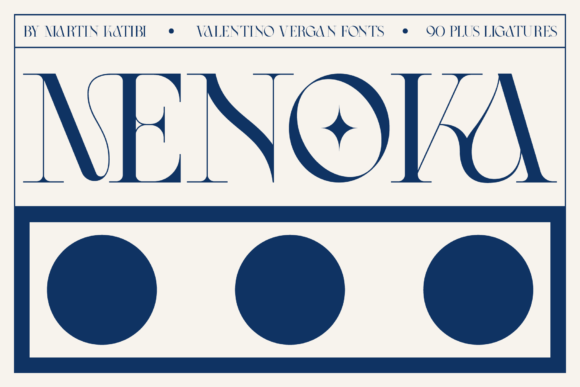
Step into the timeless realm of typographic elegance with Menoka, a sophisticated serif typeface that exudes the grace and refinement of the Renaissance period. Its slender hairlines and elongated serifs echo the refined aesthetics of 17th-century artistry, bringing a touch of historical charm to your designs.
With its meticulously crafted stylistic ligatures, Menoka adds a touch of visual intrigue to your headlines, logos, and short to medium texts. The ligatures seamlessly connect characters, creating a harmonious flow that enhances readability and adds a touch of sophistication to your written words.
Whether you're a seasoned designer or just starting your creative journey, Menoka is the perfect choice for those seeking a font that embodies both elegance and modernity. Its versatility and timeless appeal make it an essential tool for creating designs that resonate with your audience and leave a lasting impression.
Indulge in the beauty of Menoka and elevate your designs to new heights of sophistication. Join a community of discerning creatives who appreciate the finer details and embrace the power of typography to evoke emotions and captivate audiences.